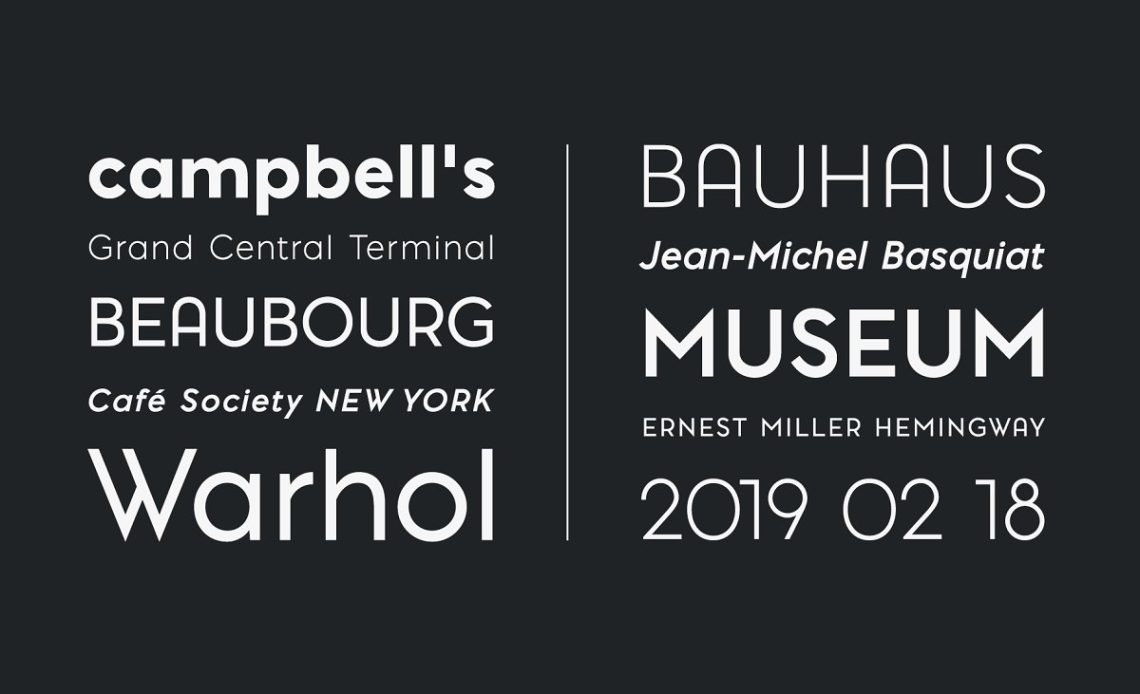
Looking for the best font for website text? Look no further than the Pontiac Font Collection by S&C Type! This sans serif OpenType font was designed by Fanny Coulez and Julien Saurin in Paris and strikes the perfect balance between functionality and warmth.
With a design that's somewhere between Akzidenz Grotesk and Neutra, Pontiac is a unique font that's both geometric and human. It's the perfect choice for anyone who wants to give their website a distinctive French touch.
This pack includes the full set of Pontiac fonts, which includes eight different variations. Choose from Pontiac Light, Pontiac Regular, Pontiac Bold, Pontiac Black, Pontiac Light Italic, Pontiac Regular Italic, Pontiac Bold Italic, and Pontiac Black Italic.
But that's not all – we've also included an inline Art Deco version of this font called Pontiac Inline. With so many different variations to choose from, the possibilities are endless.
Whether you're creating a website, designing a logo, or working on a branding project, the Pontiac Font Collection is the perfect choice. It's versatile, easy to read, and adds just the right amount of personality to any project.